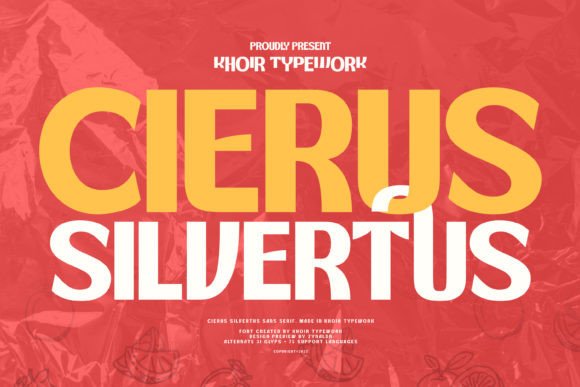
Dive into the captivating world of Cierus Font, a display sans serif that instantly adds a touch of whimsy and charm to your designs. Its playful spirit shines through in every curve and stroke, making it the perfect choice for creating eye-catching posters, vibrant stickers, and unforgettable flyers that will make your audience smile.
Picture a food truck adorned with Cierus Font, inviting passersby with its warm and welcoming vibe. Let your imagination run wild as you envision the fun and flirty posters that will draw attention to your next event. Cierus Font is not just a font; it's a way to infuse your designs with a sense of joy and playfulness.
Whether you're a seasoned designer or just starting out, Cierus Font is the perfect addition to your creative toolkit. Its versatility knows no bounds, allowing you to craft stunning headlines, eye-catching logos, and captivating social media graphics. Let your imagination soar and watch as your designs come to life with the magic of Cierus Font.